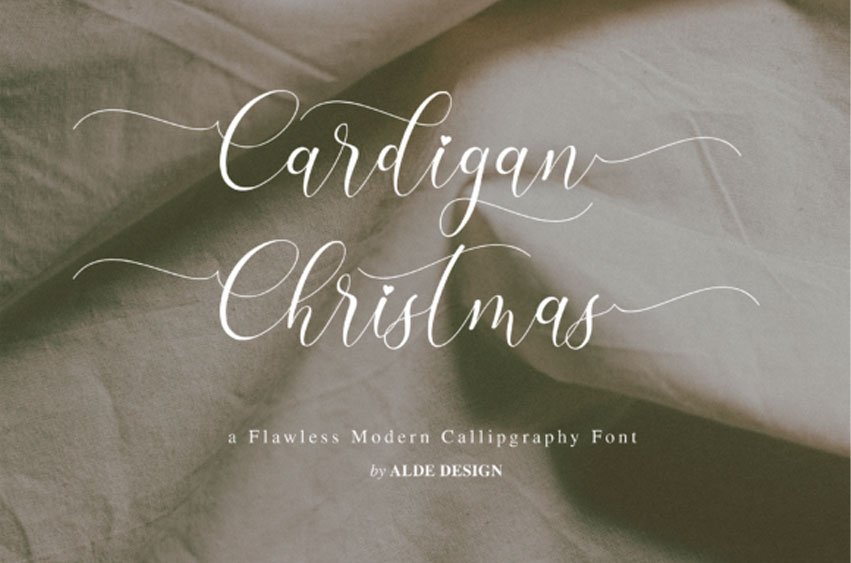
Cardigan Christmas Font is a delicate, elegant, and flowing handwritten font. It has beautiful and well-balanced characters, and as a result, it matches a wide pool of designs.
This font is PUA encoded, which means you can access all of the glyphs and swashes with ease!